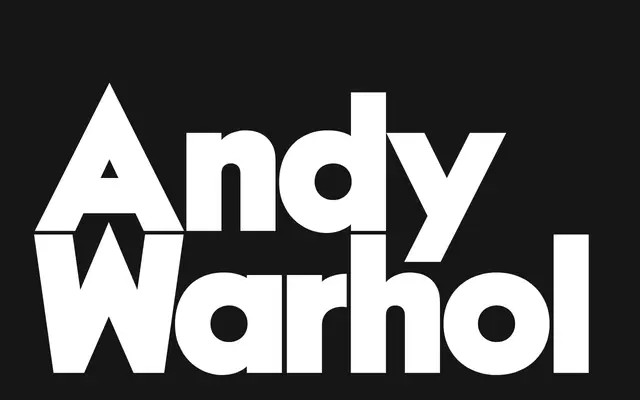
NeoGeo
Newglyph · Ian Party
A geometric sans by Ian Party with minimal stroke contrast and even widths, offered in 20 styles with a variable font axis.
Designed by Ian Party and released by Newglyph, NeoGeo takes the even widths and low contrast of Swiss geometric sans-serifs and applies what the foundry calls a twist to ensure flexibility across design contexts. The family ships in 20 styles alongside a variable font in TTF, OTF and WOFF2 formats, with 392 glyphs per style covering a broad sweep of Latin-based languages. Pricing starts at CHF 200 for a single style.
NeoGeo is described as having minimal contrast and even widths reflecting a geometric archetype, placing it squarely in the geometric sans-serif tradition with a Swiss sensibility.